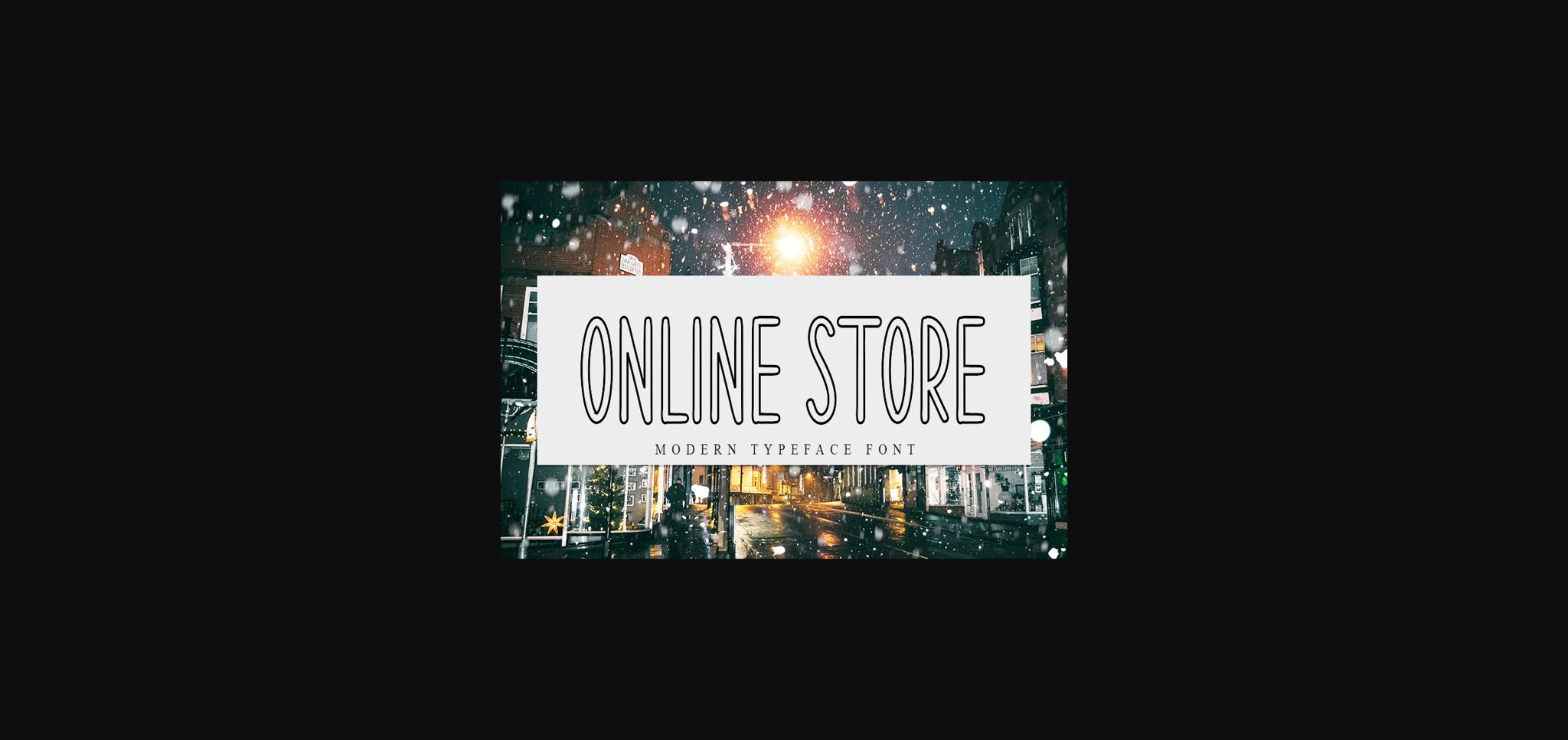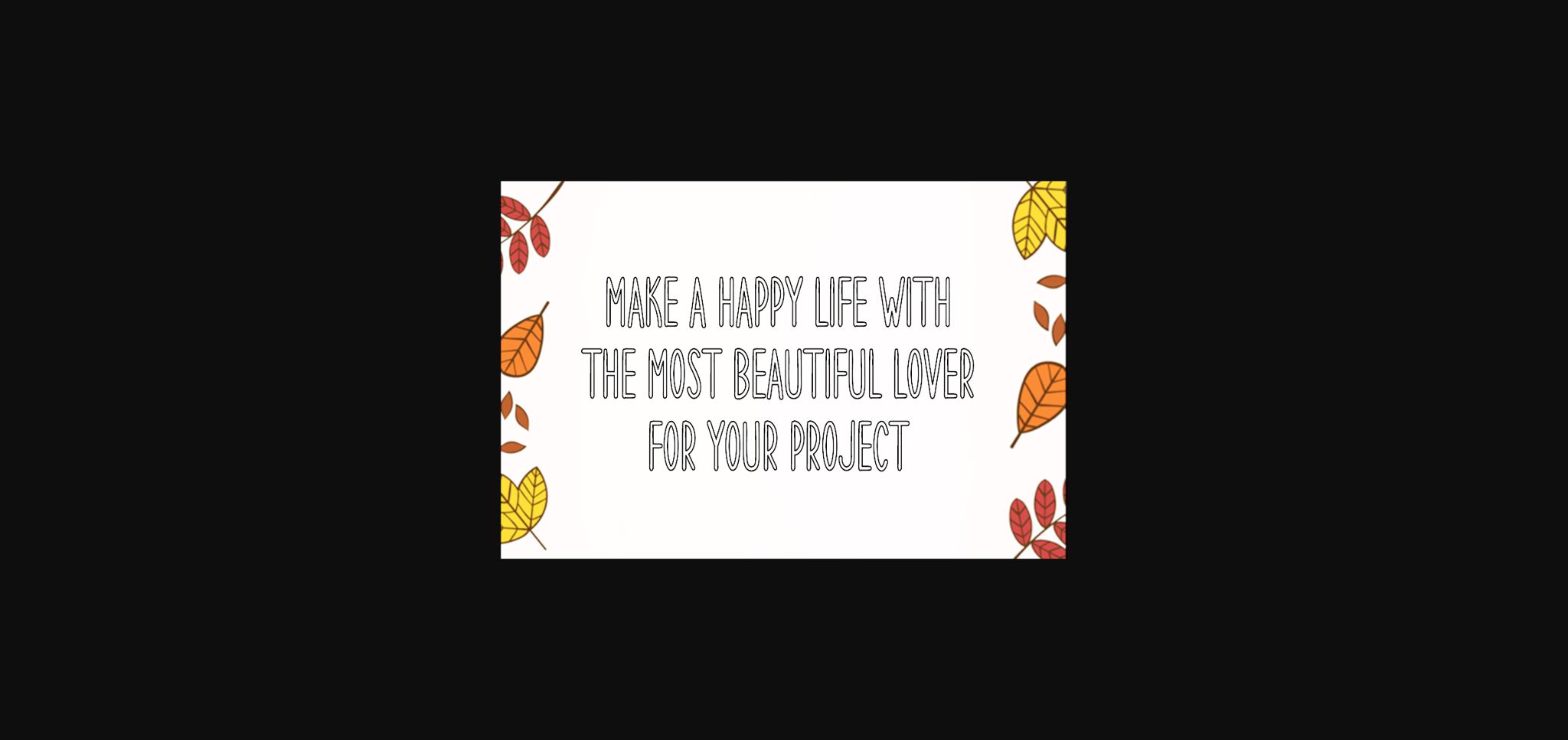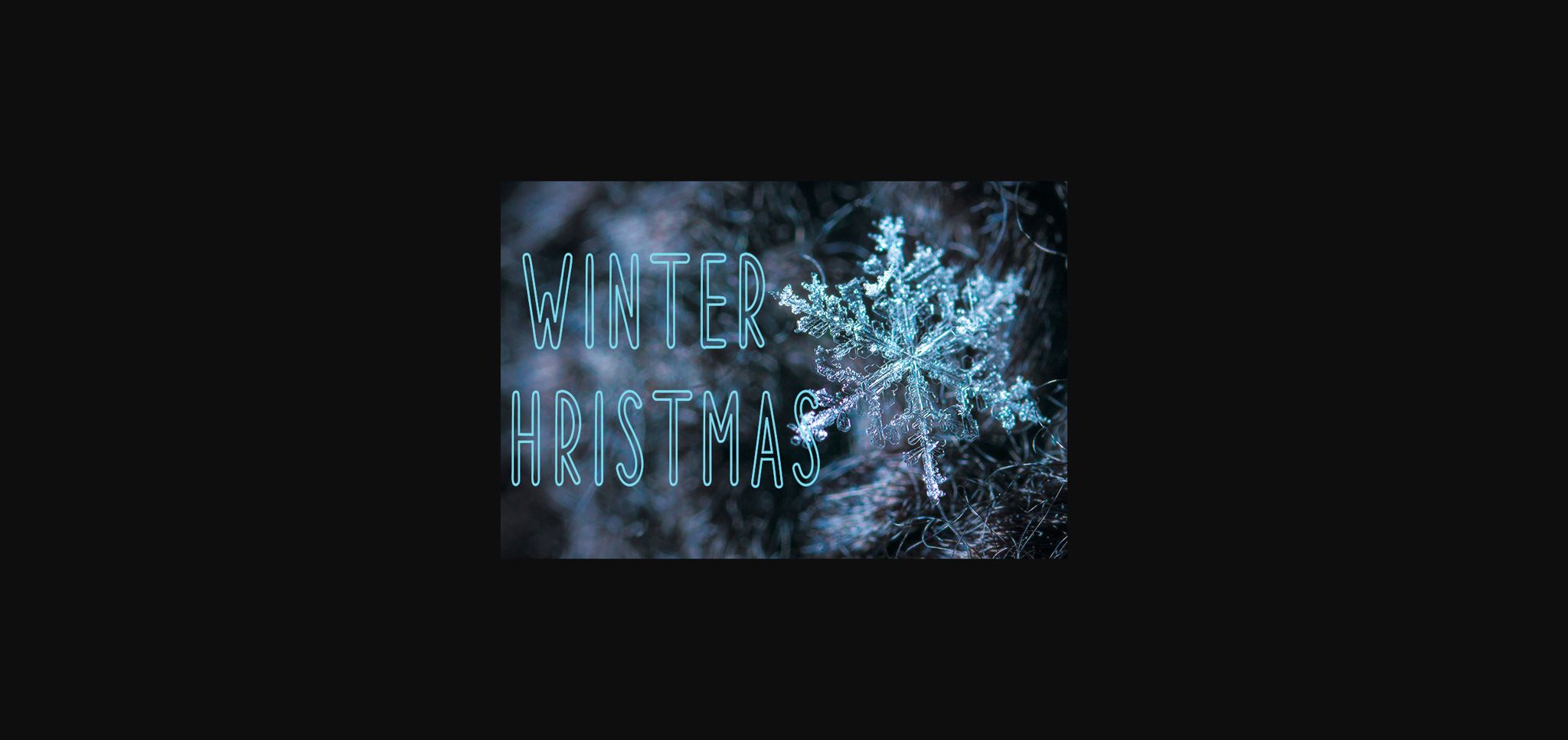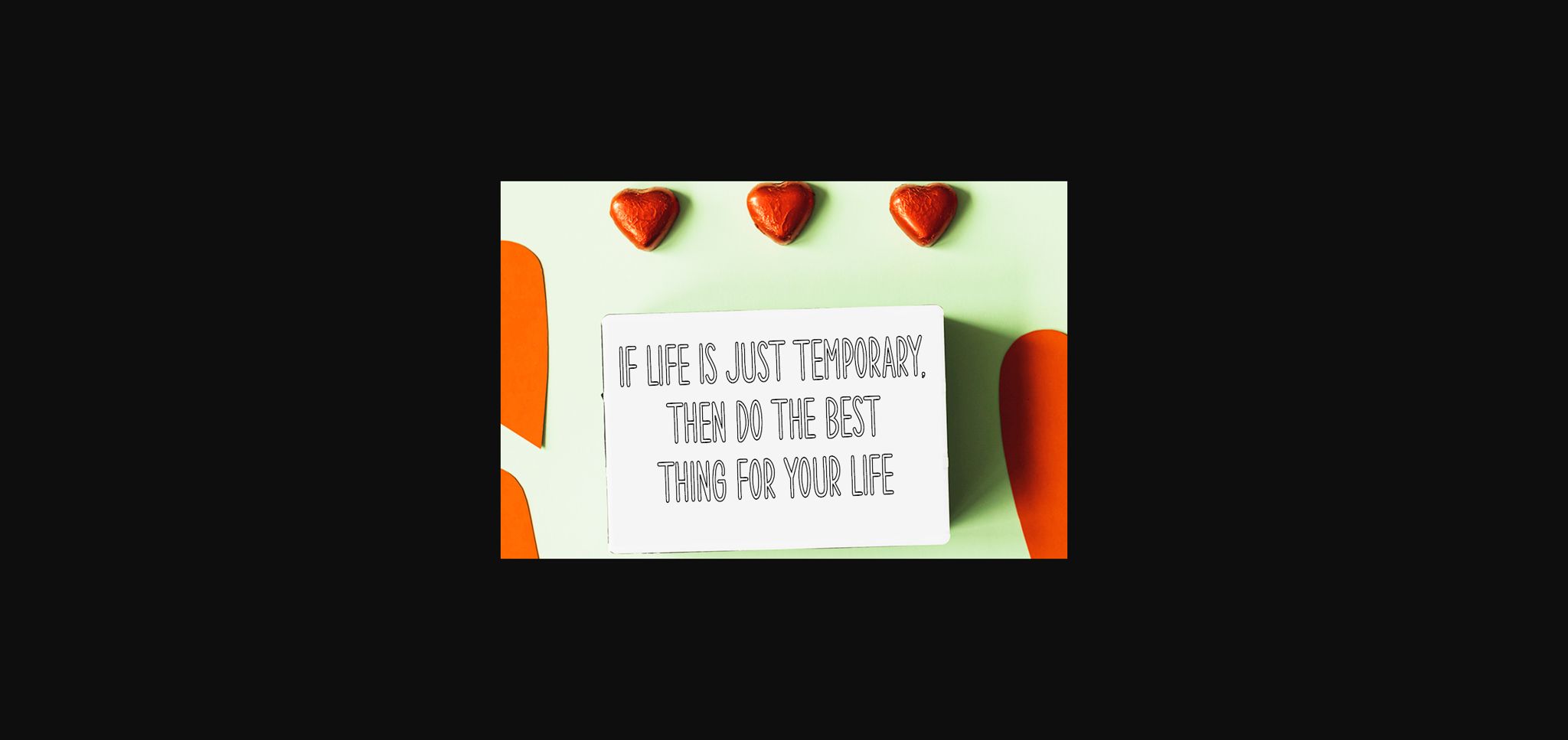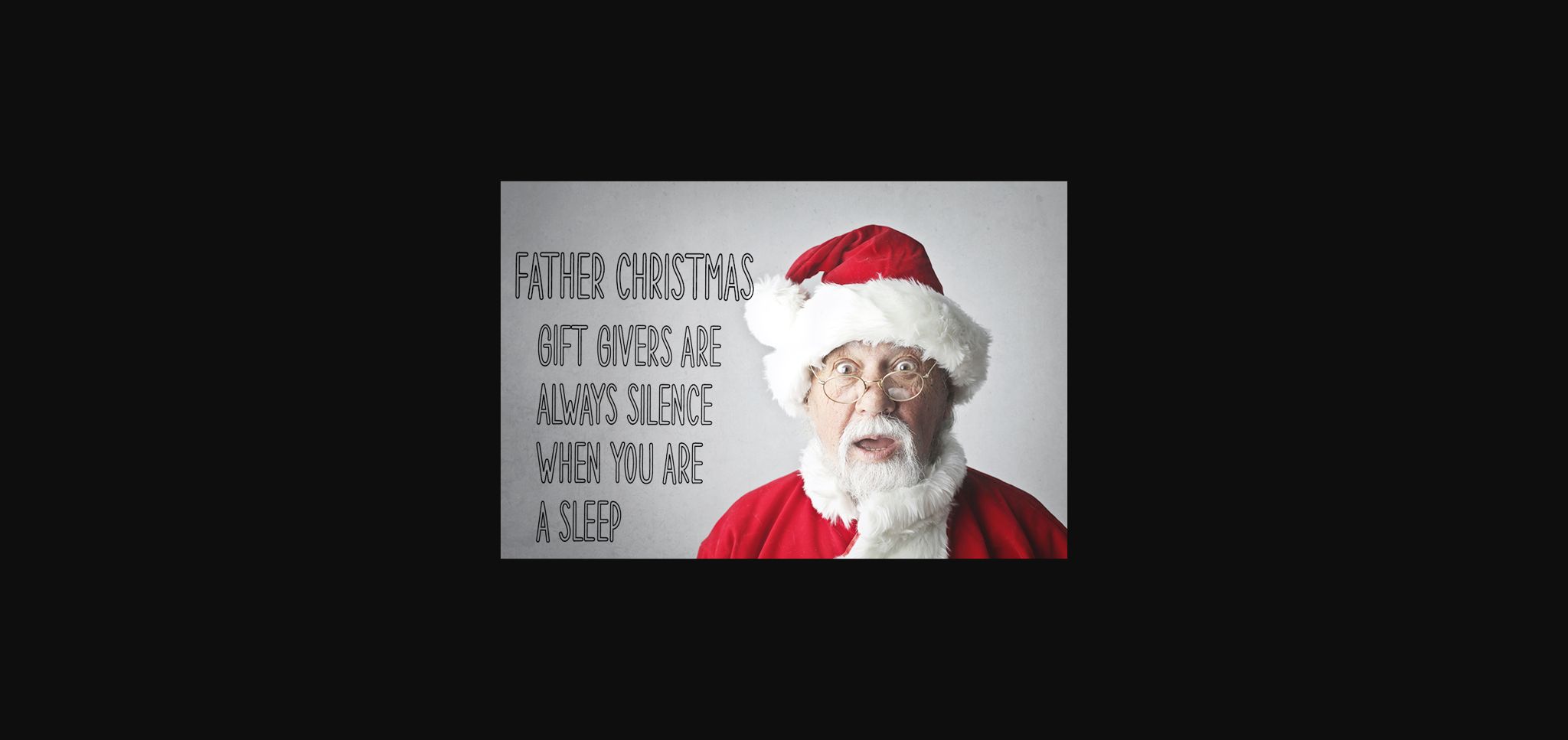
HomeSans Serif FontsOnline Store Font Sans Serif Fonts Online Store Font FacebookXPinterestWhatsApp 1 of 7 ... Online Store Font Poster 2... Online Store Font Poster 3... Online Store Font Poster 4... Online Store Font Poster 5... Online Store Font Poster 6... Online Store Font Poster 7... About Online Store Font Online Store is a simple and friendly sans serif font. It has a casual and attractive style and is the ideal choice for each of your informal designs. DOWNLOAD NOW People also explored Almost Font Sunshine Font Sabilla Font Denver Font MultiType Lines Wide 2 Font Old Gold Gildan 5000 T-Shirt Mockup Chica Maravilla Font Symphonys Font Procreate Font 334 0 TagsOnline Store Font Previous articleSamara FontNext articleSweetly Girl Font LEAVE A REPLY Cancel reply Comment: Please enter your comment! Name:* Please enter your name here Email:* You have entered an incorrect email address! Please enter your email address here Website: Save my name, email, and website in this browser for the next time I comment. Personal Use Free Gardening Personal Use Free Read more about this font Happy Camping Personal Use Free Read more about this font Wadjet Personal Use Free Read more about this font Stentiga Personal Use Free Read more about this font BLOG To increase your work productivity, choose the most readable fonts. In today's fast-paced work environment, where digital communication and information consumption are integral to our daily routines, the choice of fonts can significantly impact... Free Fonts Risk: Why Free Fonts Can Be Dangerous for Designers 5 Fonts That Will Dominate Design Trends in 2026 How to Install and Use Fonts on Windows, macOS, and Web Projects